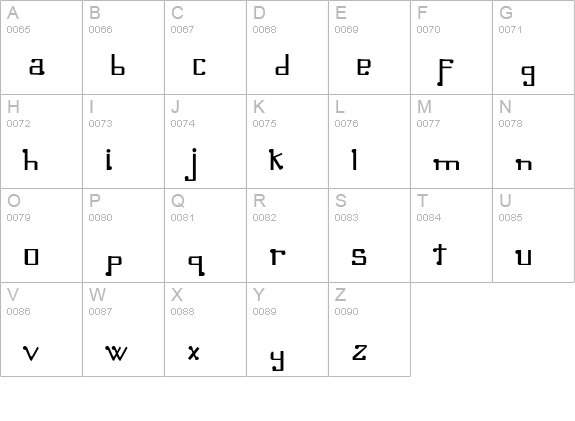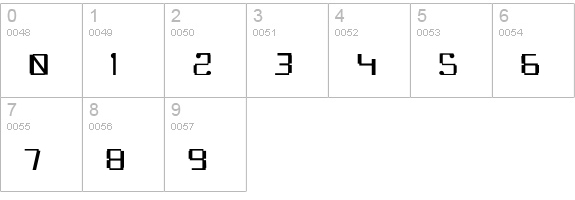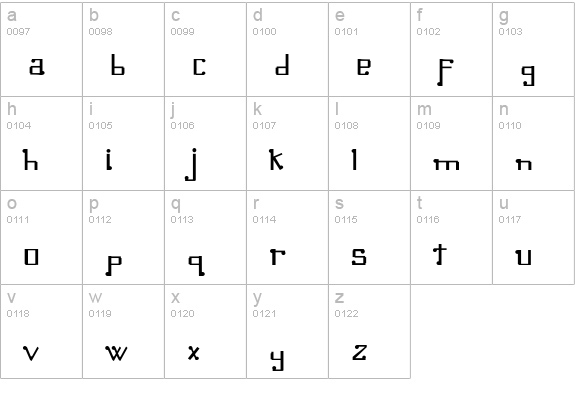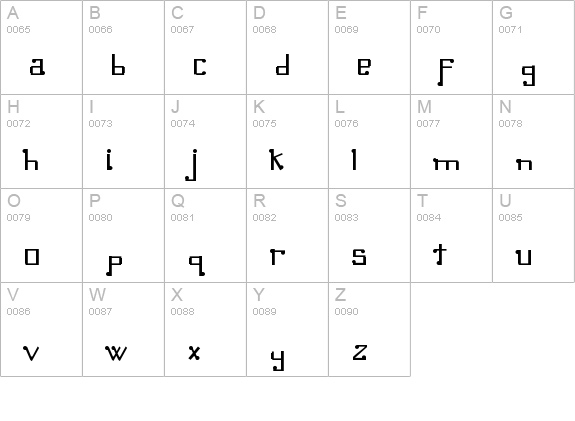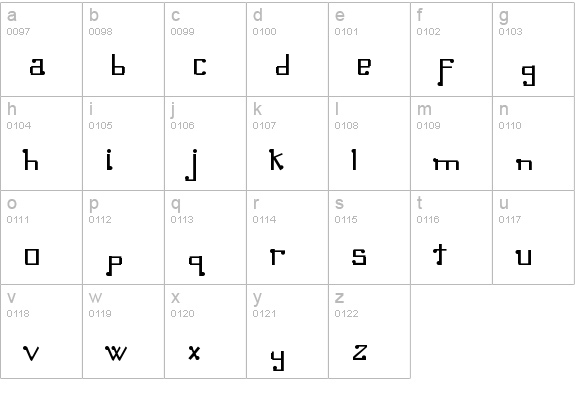
Omellons Medium Font Details
Omellons Medium is a balanced, medium-weight variant in the Omellons typeface family \xE2\x80\x94 well suited to sub-headlines, navigation, and balanced editorial work.
Omellons Medium font is a versatile typeface that strikes the perfect balance between modernity and elegance. Its clean lines and rounded edges make it ideal for a wide range of design projects, from branding and packaging to editorial layouts and web design. The medium weight of Omellons gives it a strong presence on the page without overpowering the other elements of your design. What sets Omellons apart is not only its aesthetic appeal but also its accessibility. This beautiful font is available for free download at FontsMarket.com, making it easy for designers of all skill levels to incorporate it into their work. Whether you're a seasoned professional or just starting out, Omellons Medium font is a valuable addition to your font library. Add a touch of sophistication to your next project with Omellons Medium font, and see how its timeless design can elevate your work to new heights. Download it today and let your creativity soar with this stunning typeface.